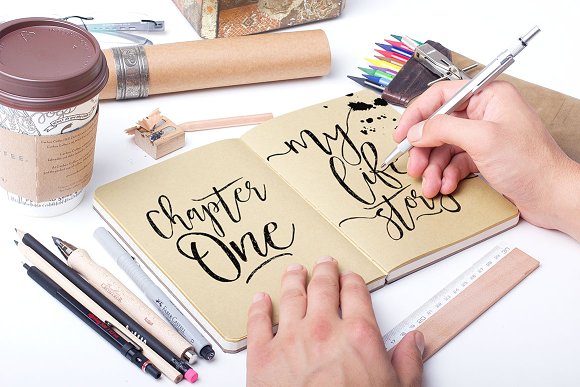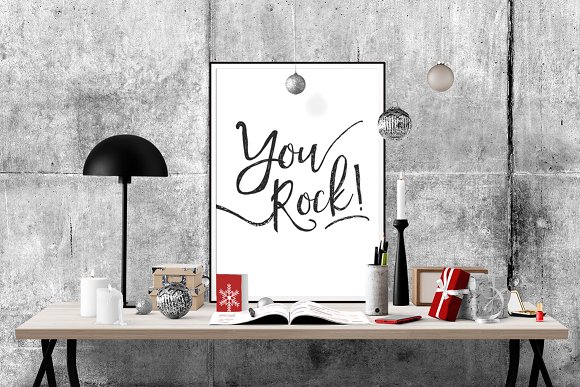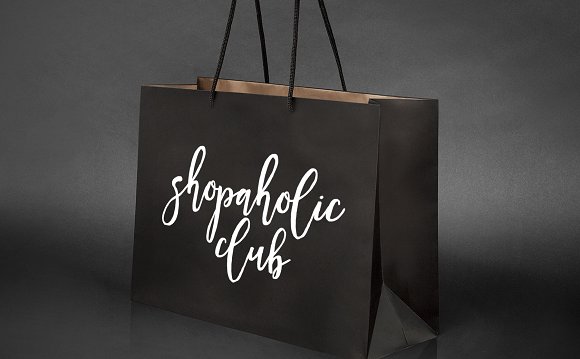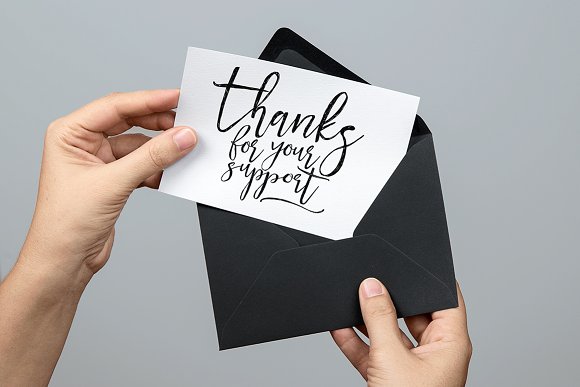
HomeScript FontsTropical Nights Font Script Fonts Tropical Nights Font FacebookXPinterestWhatsApp Tropical Nights Font Poster 2 Tropical Nights Font Poster 3 Tropical Nights Font Poster 4 About Tropical Nights Font Tropical Nights is a beautiful handcrafted font created by Creativeqube. DOWNLOAD ON CREATIVE FABRICAThis font is sold and delivered by Creative Fabrica. Font Canyon may earn a commission if you buy through this link. People also explored Music Class Font Thugluk Font My Love & Love Story Font Bestiemore Pearl Font Settary Tenjutsu Font Honey Peach Font Chantilluxe Font Flower Font Sethia Lamthe Font 282 0 TagsTropical Nights Font Previous articleTwisted Willow FontNext articleTravelling Abroad Font LEAVE A REPLY Cancel reply Comment: Please enter your comment! Name:* Please enter your name here Email:* You have entered an incorrect email address! Please enter your email address here Website: Save my name, email, and website in this browser for the next time I comment. Personal Use Free Cloudy Night Personal Use Free Read more about this font Little Pixel Personal Use Free Read more about this font Harshita Personal Use Free Read more about this font Good Mood Personal Use Free Read more about this font BLOG To increase your work productivity, choose the most readable fonts. In today's fast-paced work environment, where digital communication and information consumption are integral to our daily routines, the choice of fonts can significantly impact... Transform Your Website: Elevate Your Typography with 7 Best Web Font Generators 5 Fonts That Will Dominate Design Trends in 2026 Best Fonts for T-Shirt Design – Top 2025 Picks